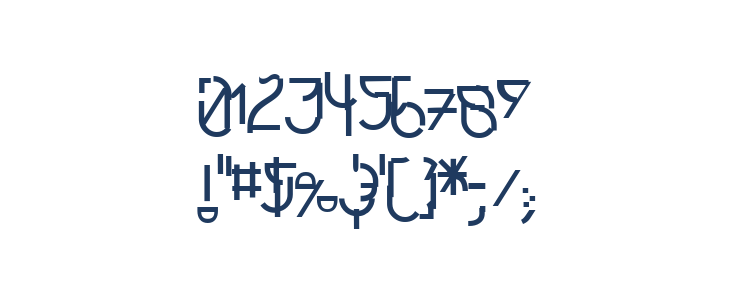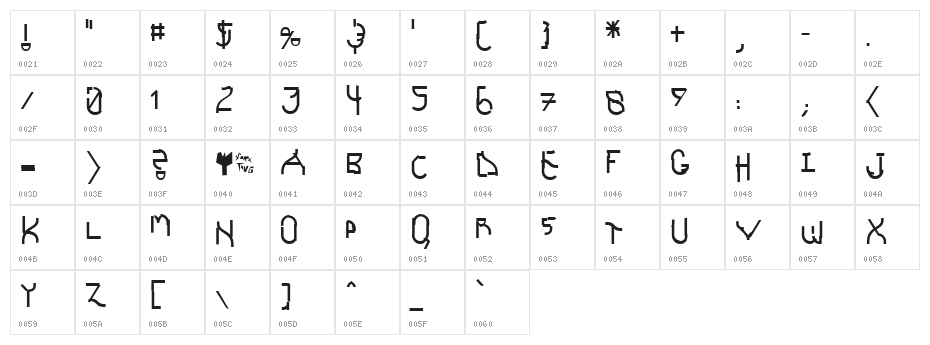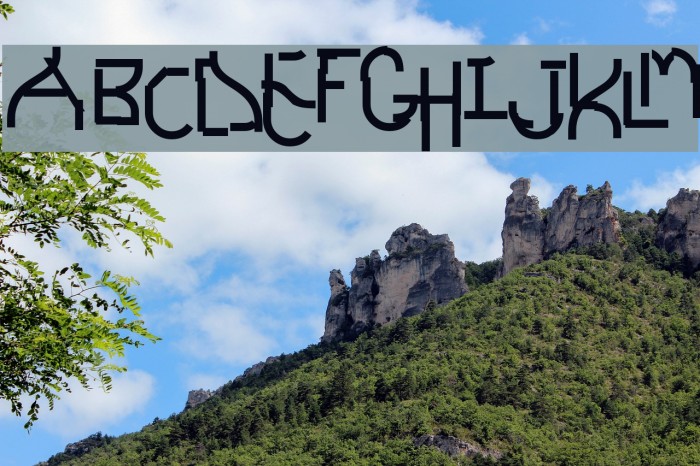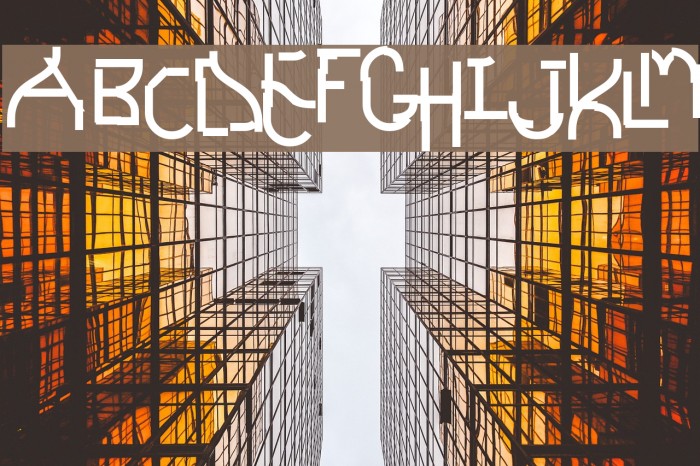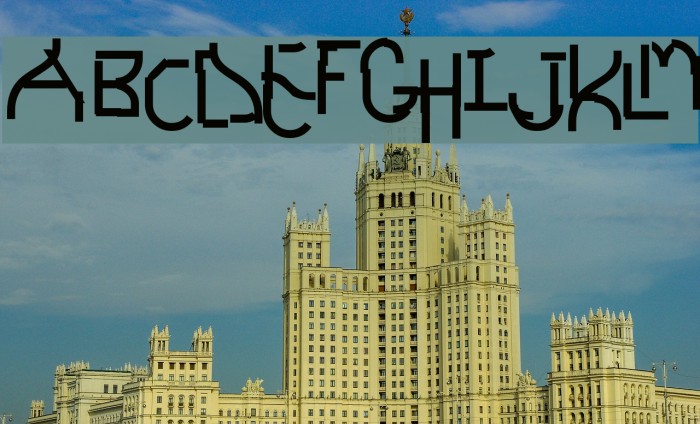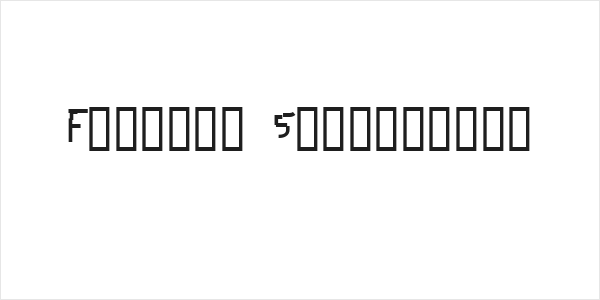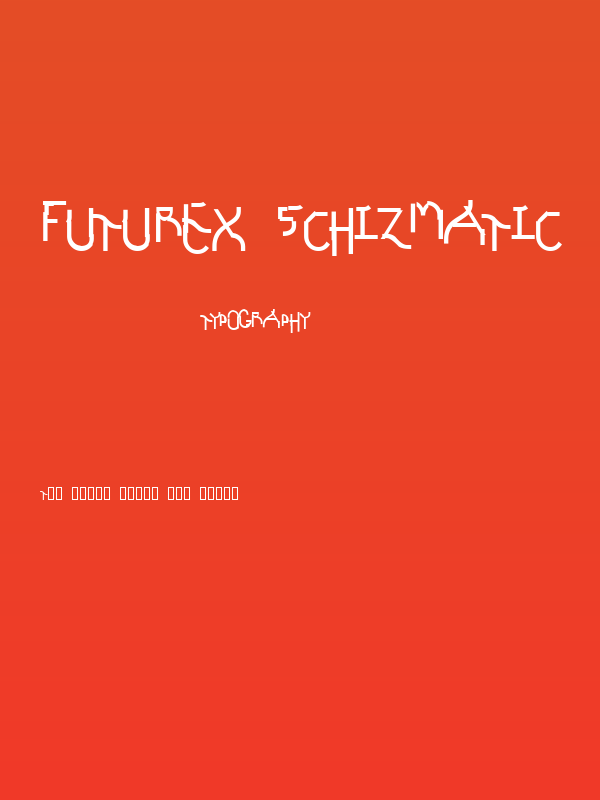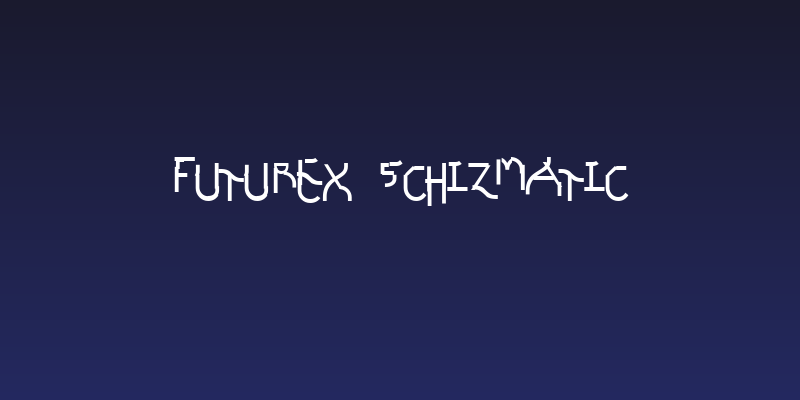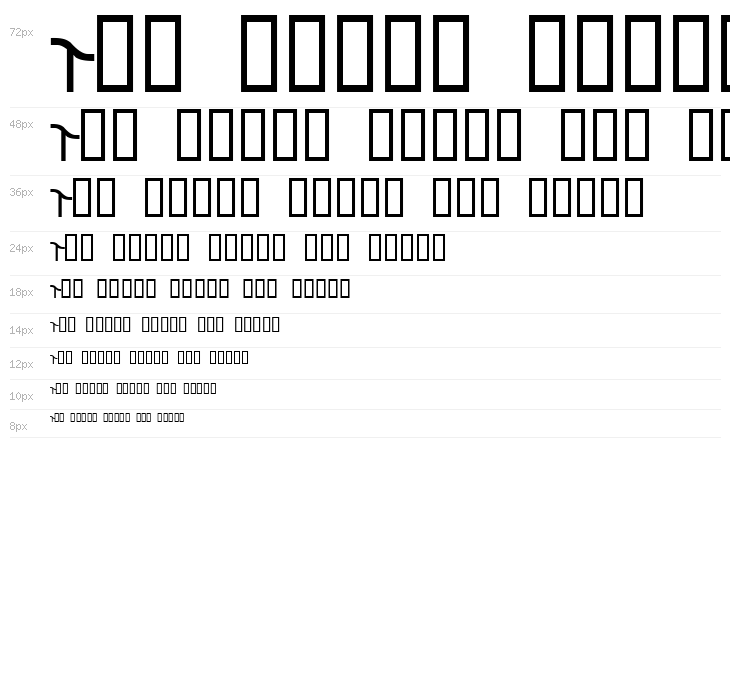
Futurex Schizmatic Font
Futurex Schizmatic Description
This font features a futuristic and geometric design with a unique blend of angular and curved elements. The uppercase letters exhibit a distinct style with sharp edges and unexpected curves, creating a sense of movement and dynamism. The lowercase letters maintain this theme, offering a cohesive look across the alphabet. The numbers are similarly styled, with a modern aesthetic that complements the overall design. Special characters are crafted with the same attention to detail, ensuring consistency throughout. The font's bold strokes and high contrast make it stand out, ideal for projects that require a modern and edgy appearance.
| Proposed Projects | Ideal for sci-fi themed designs, tech branding, video game titles, and modern posters. |